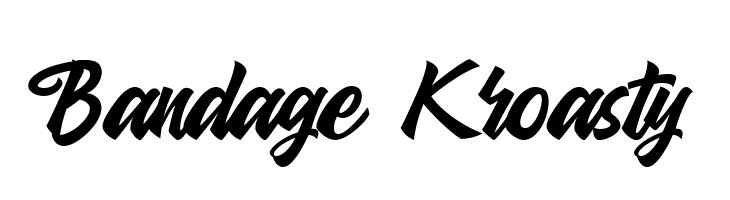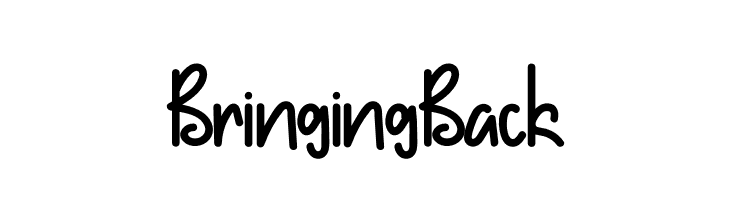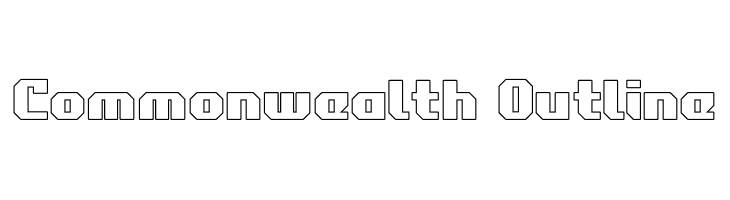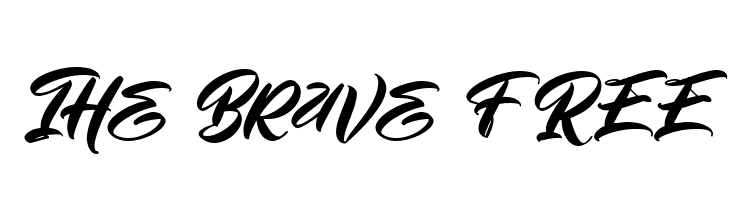
A bold, dynamic script font with flowing cursive letterforms and elegant swashes.
A bold, condensed sans-serif font ideal for impactful designs.
A playful, bold handwritten font with smooth, rounded curves.
An outline serif font with a modern and artistic style.
A bold, 3D italic font with a geometric and futuristic style.
An abstract, camouflage-inspired decorative font with bold, irregular shapes.
A futuristic, gradient-lined font with a bold, geometric style.
A modern script font with elegant, flowing cursive lines.
An elegant script font with flowing, interconnected letters and graceful flourishes.
A bold, brush-style font with dynamic, handwritten strokes.